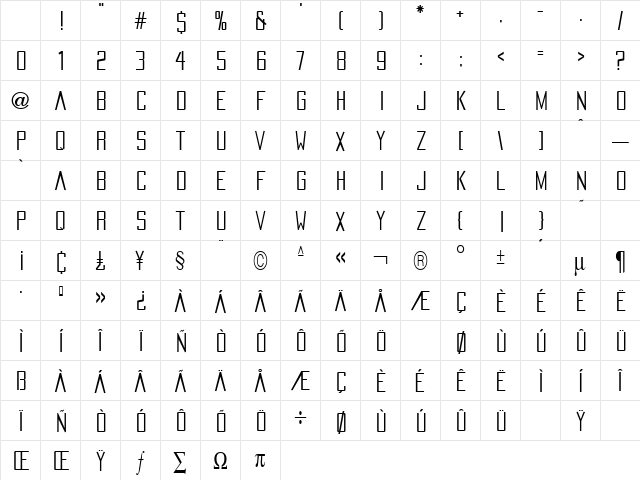
Complete Pacifica Condensed Regular glyph index. Displaying only characters natively supported by Pacifica Condensed Regular font.
Pacifica Condensed is a composed and adaptable typeface that performs quietly and consistently across a wide range of design contexts. Its narrow stance lets it pack a punch even in space-constrained designs.